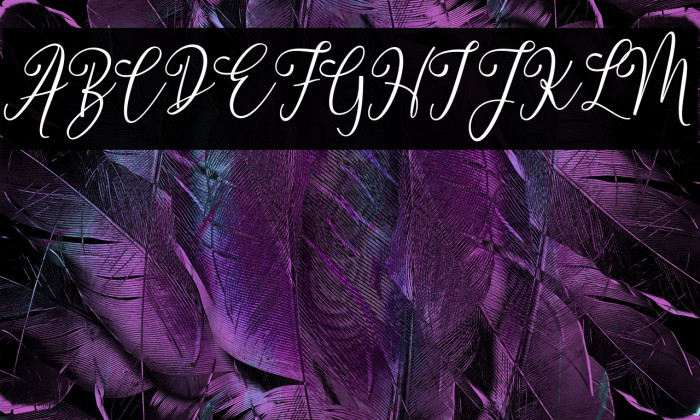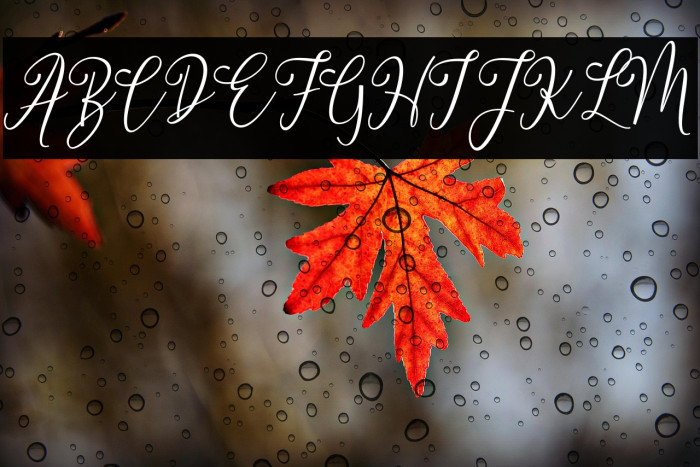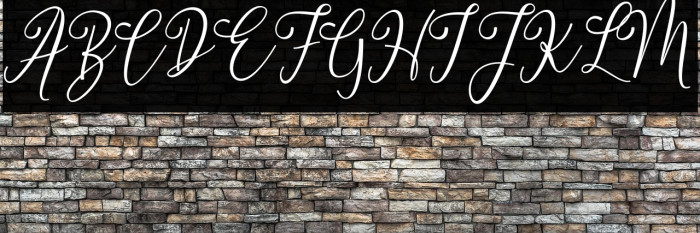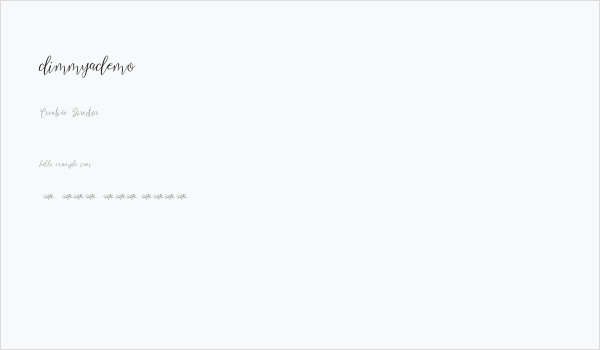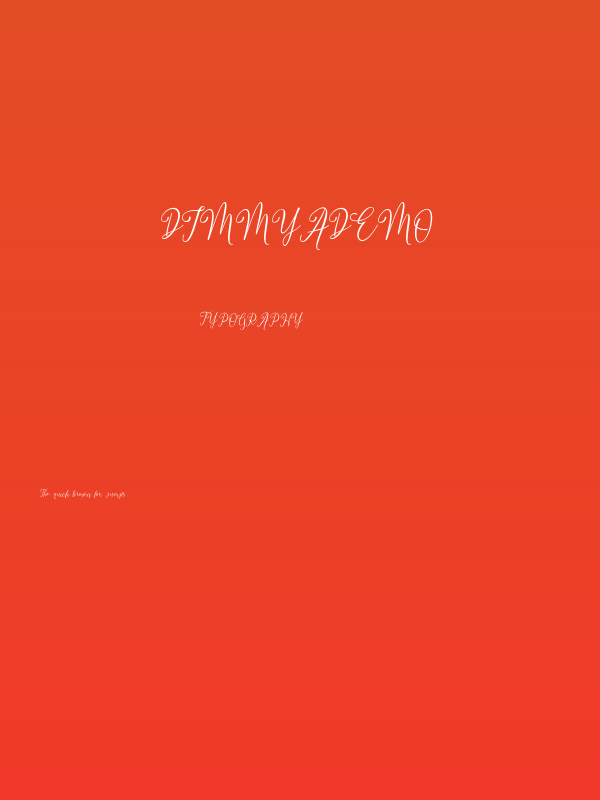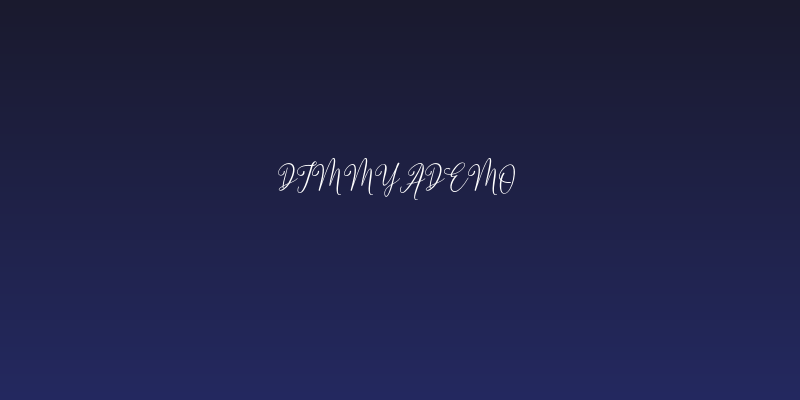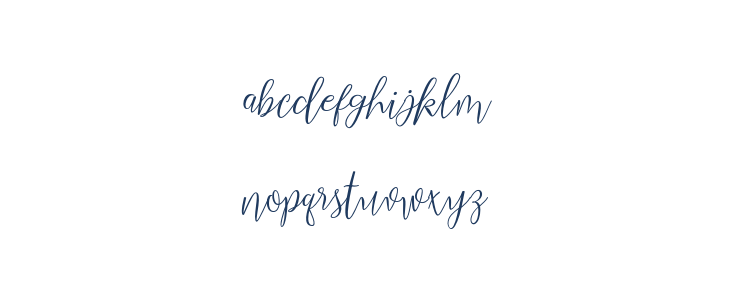
dimmyademo Font
dimmyademo Description
This elegant script font features graceful, flowing lines that mimic the fluidity of handwriting. The uppercase letters are characterized by their tall, sweeping ascenders and descenders, giving them a sense of movement and sophistication. The lowercase letters maintain a consistent style, with gentle curves and loops that enhance the font's overall charm. The font's delicate strokes and balanced proportions make it ideal for projects that require a touch of elegance and personal flair. Its unique style is perfect for invitations, greeting cards, and branding materials where a handwritten aesthetic is desired.
| Overall Style | Elegant, Handwritten |
| Use Case | Invitations, Greeting cards, Branding |
| Proposed Projects | Ideal for wedding invitations, greeting cards, personal branding, and elegant stationery. |